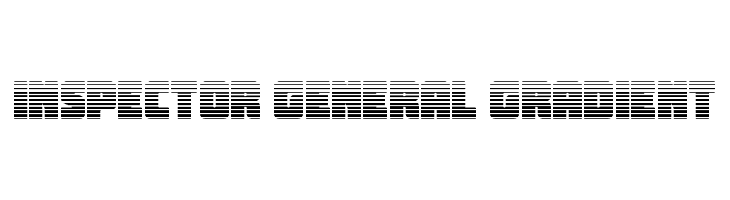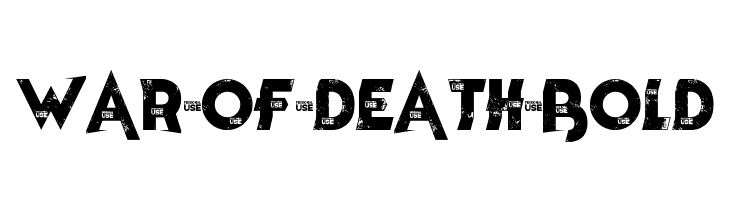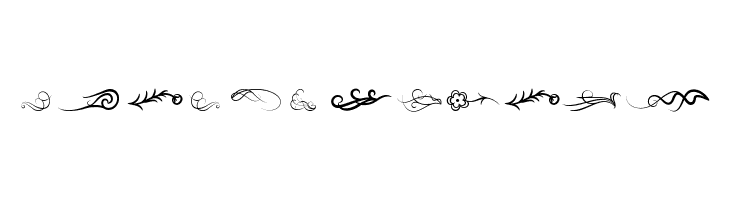
A bold, distressed font with a gritty, textured appearance.
A modern, geometric italic font with clean lines and a technical feel.
A lively and elegant script font with flowing, cursive letterforms.
A decorative butterfly-themed dingbat font with varied wing designs.
Casual handwritten font with a playful style.
A bold, geometric font with a hollow, three-dimensional effect.
A rugged, hand-drawn font with a textured, vintage appearance.
A playful, handwritten font with a whimsical and casual style.
A bold, geometric font with a striped, futuristic design.
A dynamic and elegant script font with smooth, connected letterforms.